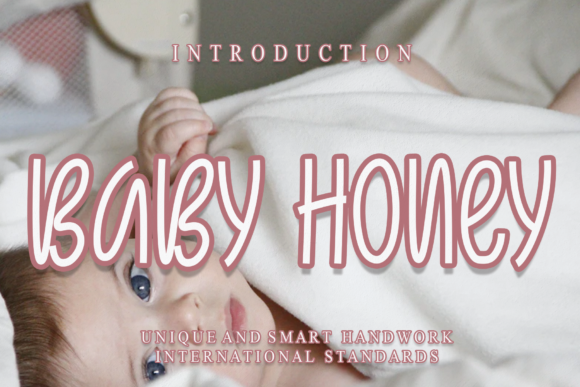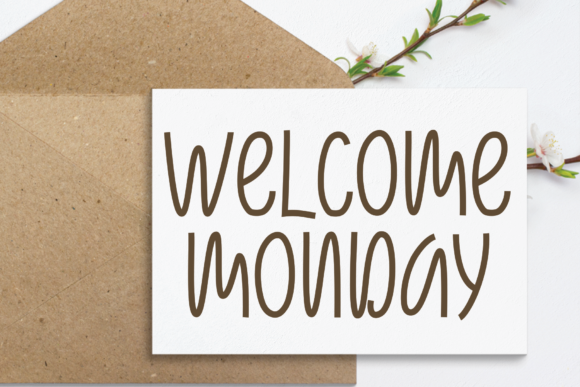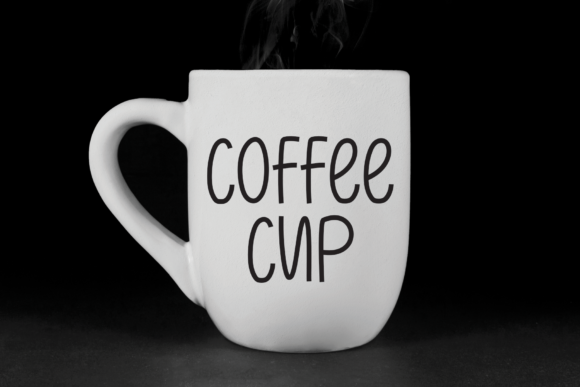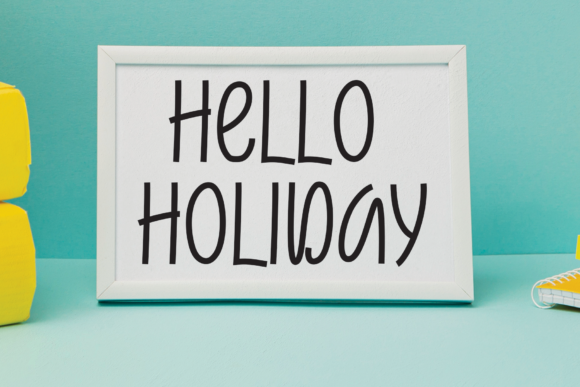
About Baby Honey Font
Baby Honey is a
Baby Honey is a charming and casual handwritten font that adds a touch of warmth and authenticity to your projects. With its natural and playful style, this font will capture hearts and bring a delightful touch to your designs.
The casual nature of Baby Honey makes it versatile and suitable for a wide range of creative ideas. Whether you’re designing greeting cards, invitations, logos, or social media graphics, this font will infuse your projects with a sense of ease and approachability.
The handwritten quality of Baby Honey adds a personal and genuine touch to your text. Each letter is crafted with care, creating a unique and organic look that mimics the imperfections of handwriting. This gives your designs a human touch, making them feel more relatable and engaging.
Fall in love with Baby Honey as it brings your projects to the highest levels. Its charming and casual style can elevate various designs, from playful and lighthearted themes to heartfelt and intimate concepts. Use it to create eye-catching headlines, titles, or prominent text elements that capture attention and leave a lasting impression.
The versatility of Baby Honey allows it to adapt to different design contexts. Whether you’re working on branding, packaging, or personal projects, this font will enhance the overall aesthetic and make your designs stand out. Its casual nature makes it particularly well-suited for projects that prioritize a friendly and approachable vibe.
In summary, Baby Honey is a casual handwritten font that adds warmth, authenticity, and a touch of playfulness to your designs. Its versatile nature allows it to be used in various creative projects, bringing a genuine and engaging feel. Fall in love with Baby Honey and let it elevate your projects to the highest levels.
casual handwritten font. Fall in love with it and bring your projects to the highest levels!